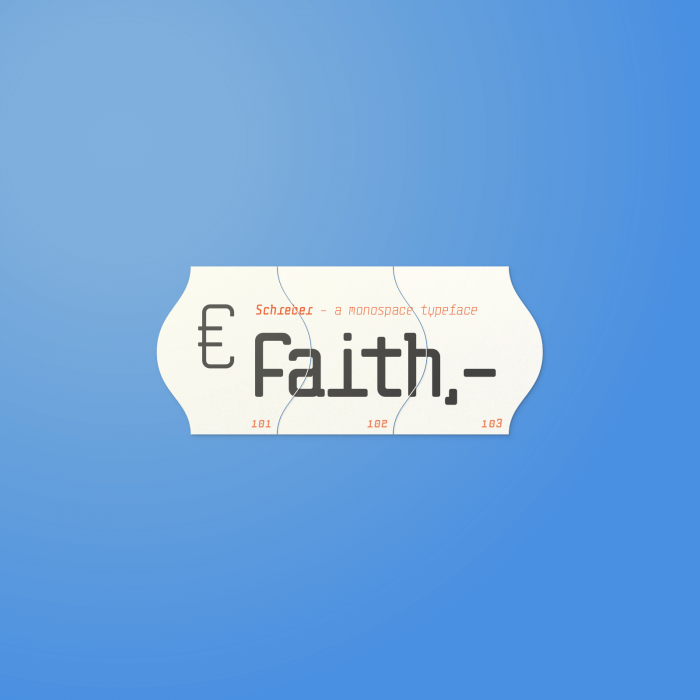
• work in progress… look closely. any suggestions welcome
Love the g. I see your signature r in there too.
Good one, with the feel of typewriter.
I like numbers in here.
@demonics: thank you. actually i love that kind of r's. first time i saw them was when i discovered NORM -> http://lineto.com/The+Designers/Norm/ they inspire me a lot.
Nice work - looks really good at pixel size as well. 10/10
Crisp and clear!
I am not sure of the numbers…?
A great sample that shows off those curves yet also the crisp quality of this type-writer style font; it's a pleasure to look at and to read and will be quite a novel design when finished. Love the ß and the "Y".